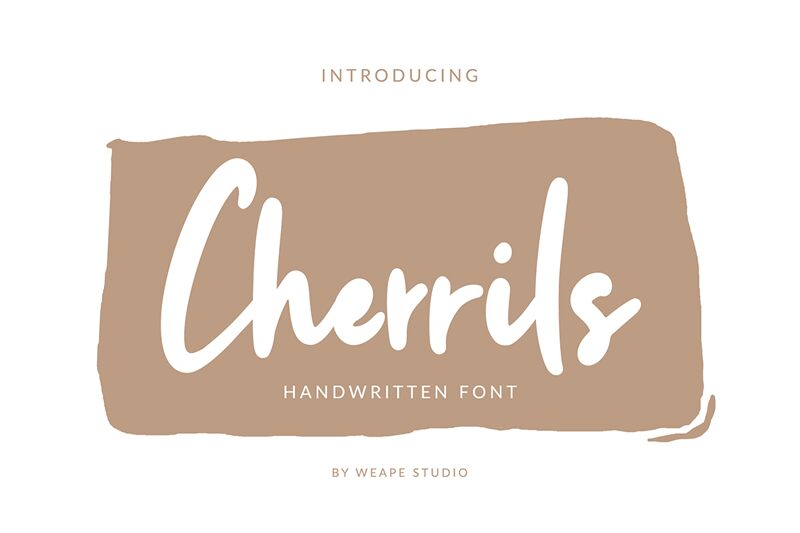
Cherrils is a narrow, casual handwritten font designed by Wahyu Andi P. Its unique style is perfect for projects that need a personal touch, such as greeting cards, invitations, and signature logos.